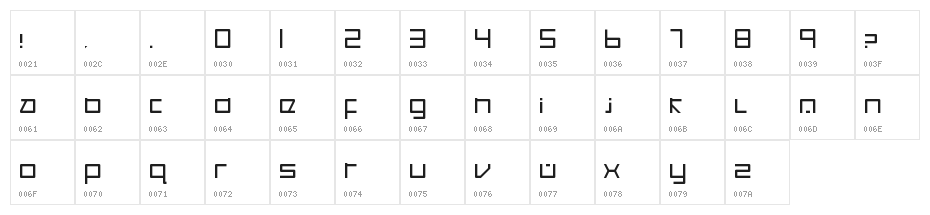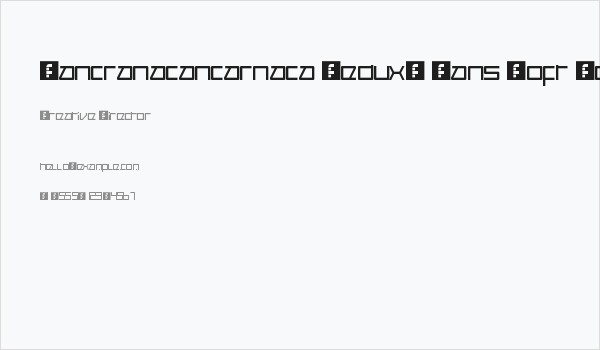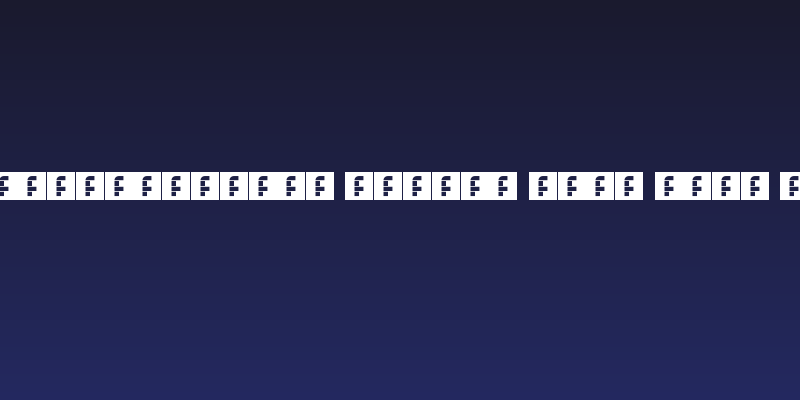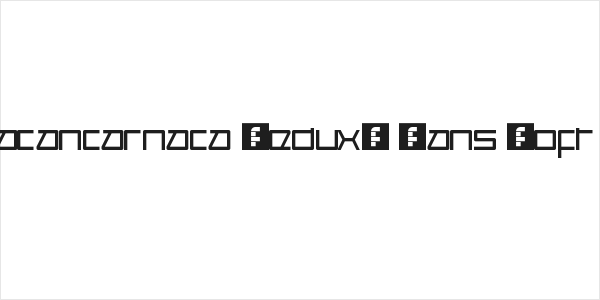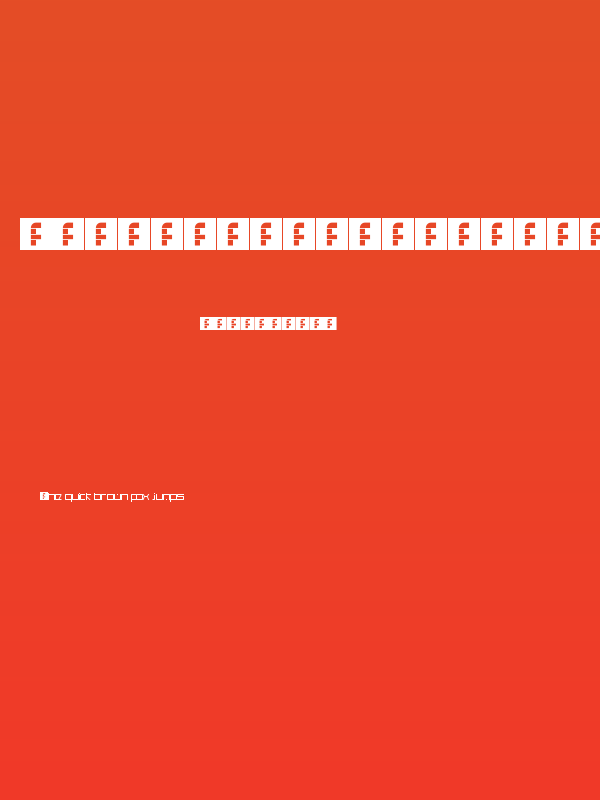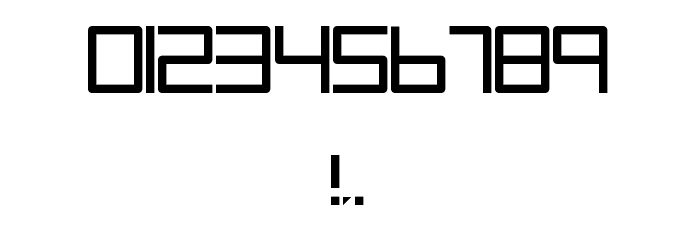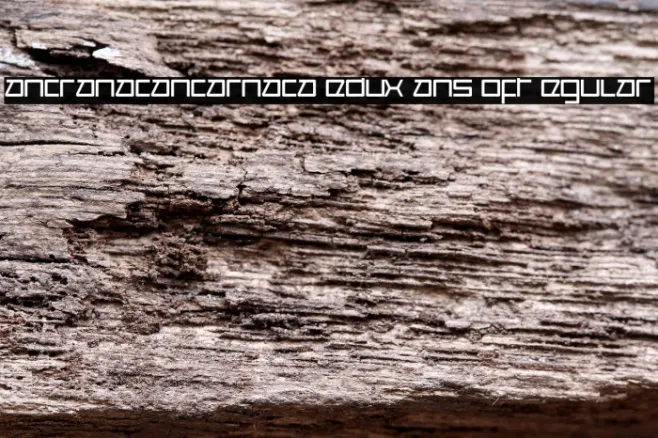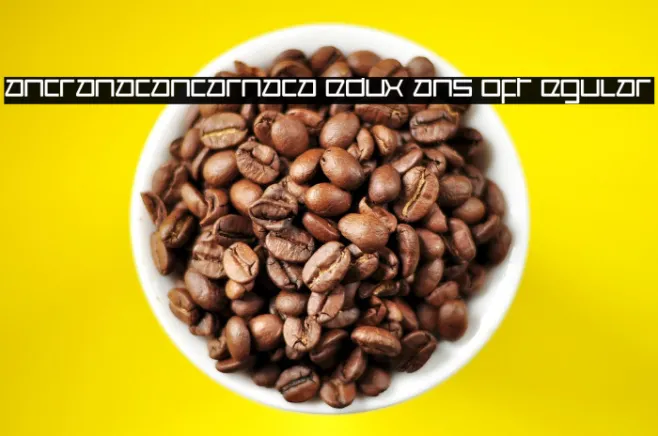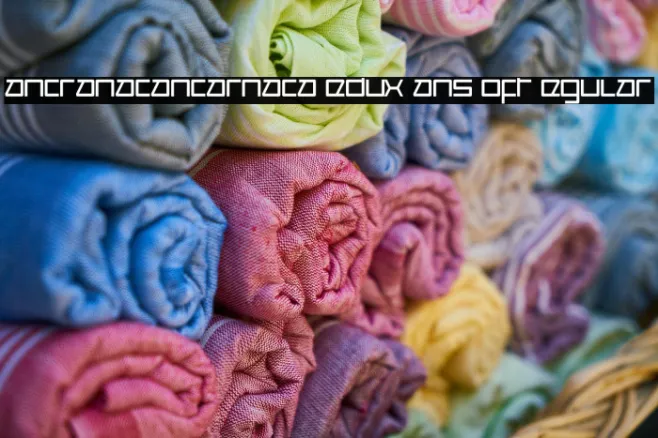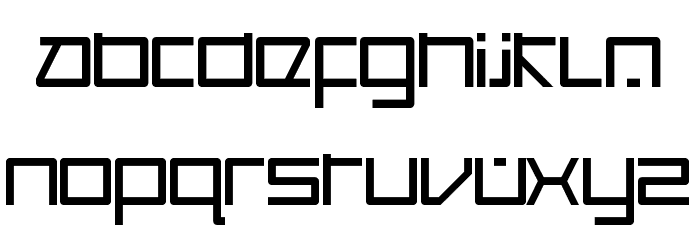
Cancranacancarnaca Redux: Sans Soft Regular Font
Cancranacancarnaca Redux: Sans Soft Regular Description
This font features a modern and geometric design with a distinct block-like structure. Each character is crafted with precision, showcasing a uniform width and height that creates a cohesive and structured appearance. The font's clean lines and angular shapes give it a futuristic and tech-inspired feel, making it ideal for digital and contemporary projects. The characters are evenly spaced, providing a balanced and readable text flow. Its minimalistic style is complemented by a slight softness in the corners, adding a touch of warmth to its otherwise sleek design.
| Use Case | Headlines, Logos, Digital interfaces |
| Proposed Projects | Ideal for digital interfaces, tech branding, modern posters, and innovative product packaging. |